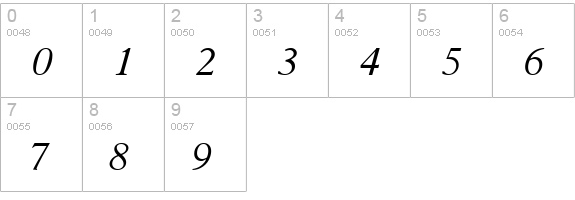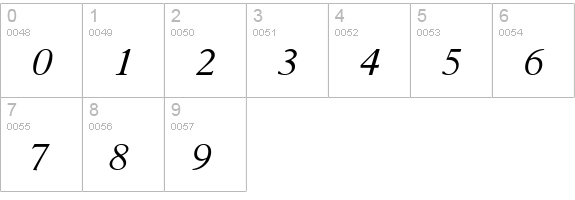
Austin-Italic is a distinctive, italic variant in the Austin typeface family \xE2\x80\x94 well suited to design and typography projects.
Austin-Italic is a sleek and stylish font that exudes elegance and sophistication. Its italicized design adds a touch of flair to any project, making it perfect for creating eye-catching headings, titles, and other design elements. The smooth lines and unique curves of Austin-Italic give it a modern and contemporary feel, while still maintaining a sense of timeless beauty. What's even better is that Austin-Italic is available for free download at FontsMarket.com. This means you can easily access this stunning font and use it in your projects without any cost. Whether you're working on a personal project or a professional design, Austin-Italic is sure to elevate your work and bring a touch of class to your typography. Download Austin-Italic today and add a touch of elegance to your designs!